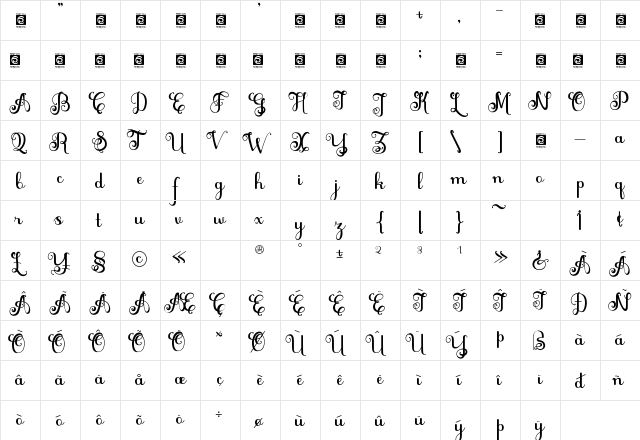
Zahiya Regular
| Foundry | Putracetol Studio, Karanganyar. |
| Designer | Putra Novembria Candra Kusuma |
Design Context for Zahiya Typeface
Zahiya is a composed and adaptable typeface that performs quietly and consistently across a wide range of design contexts.